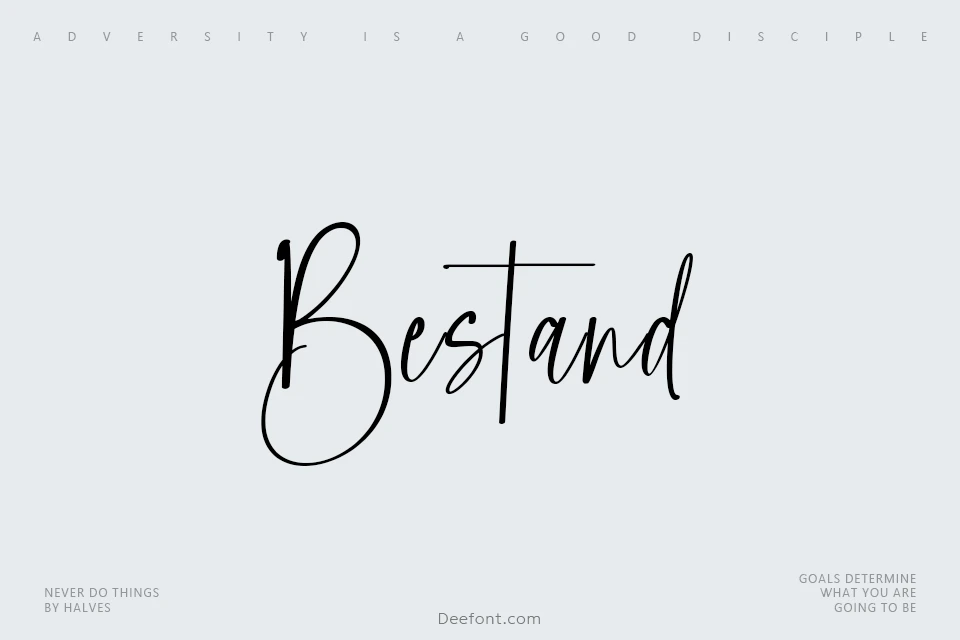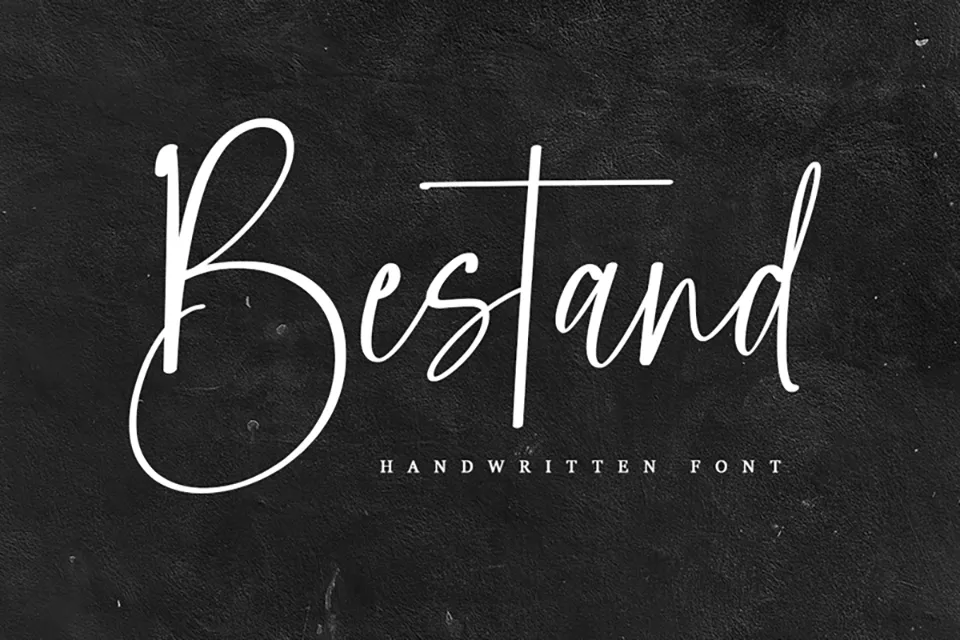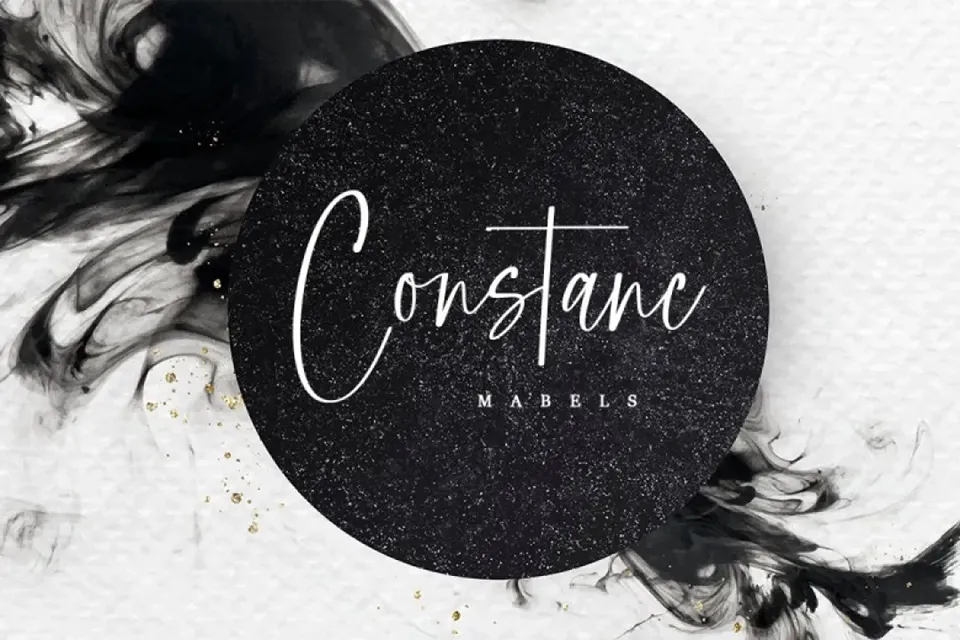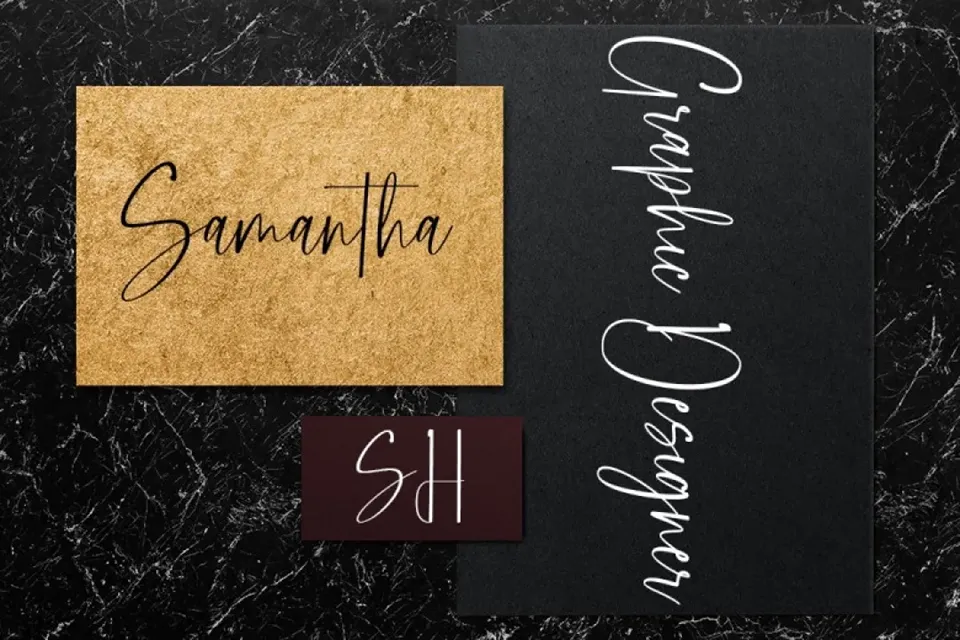
Bestand Font
Bestand Font is a stylish handwritten script typeface designed to emulate authentic handwriting with a natural signature style. Its elegant and flowing letterforms make it ideal for branding, invitations, logos, and other creative projects that require a personal and sophisticated touch.If you have any question , feel free to drop me a message at dimasajivirgiawan@gmail.com
Designed by:Dav Studio